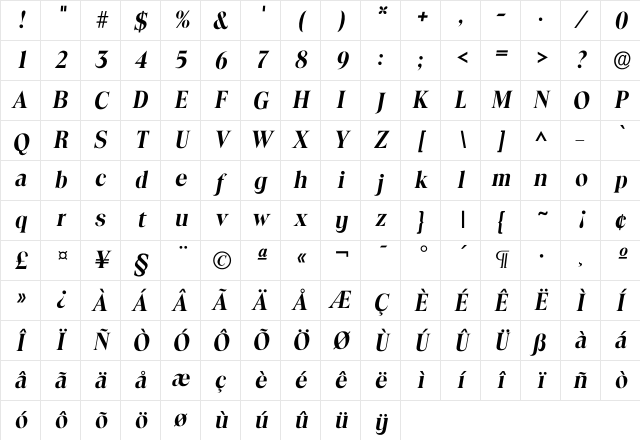
Itoledo DemiBold
Style: DemiBold
Itoledo Family
Itoledo DemiBold
Design Context for Itoledo
Itoledo is a composed and adaptable typeface that performs quietly and consistently across a wide range of design contexts. Its bold stroke weight gives it real presence on the page.